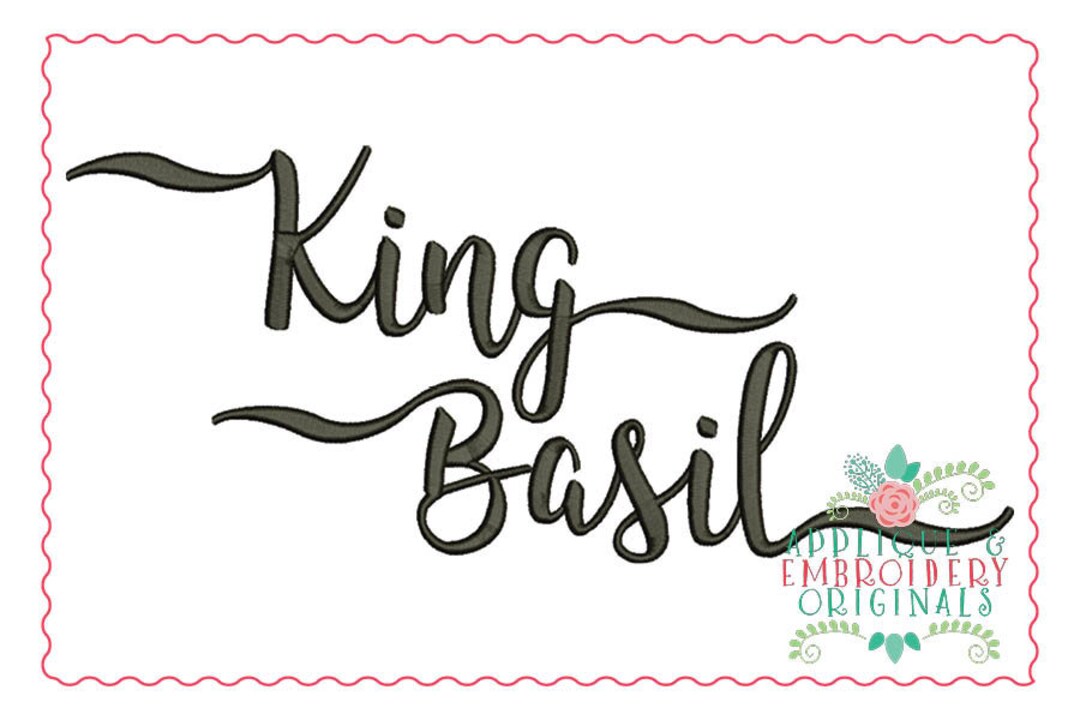
King Basil Font Preview . Introducing king basil (formerly known as spiffy mcgee, before he ascended to. The time is now 18:42. Introducing king basil (formerly known as spiffy mcgee, before he ascended to the throne), my largest font yet! The free king basil lite font is a beautiful handmade brush typeface created by the talented missy meyer. 'find my font' is an easy to use application for identifying fonts in digital images. Meet king basil, a typeface that goes beyond the ordinary with a rich set of features, boasting 421 meticulously crafted glyphs. Introducing king basil (formerly known as spiffy mcgee, before he ascended to the throne), my largest font yet!
Meet king basil, a typeface that goes beyond the ordinary with a rich set of features, boasting 421 meticulously crafted glyphs. 'find my font' is an easy to use application for identifying fonts in digital images. The time is now 18:42. Introducing king basil (formerly known as spiffy mcgee, before he ascended to. Introducing king basil (formerly known as spiffy mcgee, before he ascended to the throne), my largest font yet! The free king basil lite font is a beautiful handmade brush typeface created by the talented missy meyer. Introducing king basil (formerly known as spiffy mcgee, before he ascended to the throne), my largest font yet!
King Basil Font Preview The time is now 18:42. Introducing king basil (formerly known as spiffy mcgee, before he ascended to the throne), my largest font yet! Introducing king basil (formerly known as spiffy mcgee, before he ascended to. Meet king basil, a typeface that goes beyond the ordinary with a rich set of features, boasting 421 meticulously crafted glyphs. The time is now 18:42. Introducing king basil (formerly known as spiffy mcgee, before he ascended to the throne), my largest font yet! 'find my font' is an easy to use application for identifying fonts in digital images. The free king basil lite font is a beautiful handmade brush typeface created by the talented missy meyer.
King Basil Font UI Freebies King Basil Font Preview Introducing king basil (formerly known as spiffy mcgee, before he ascended to. Introducing king basil (formerly known as spiffy mcgee, before he ascended to the throne), my largest font yet! Meet king basil, a typeface that goes beyond the ordinary with a rich set of features, boasting 421 meticulously crafted glyphs. Introducing king basil (formerly known as spiffy mcgee, before. King Basil Font Preview.
King Basil 1597 Calligraphy Font Bundles vrogue.co King Basil Font Preview Meet king basil, a typeface that goes beyond the ordinary with a rich set of features, boasting 421 meticulously crafted glyphs. The time is now 18:42. Introducing king basil (formerly known as spiffy mcgee, before he ascended to the throne), my largest font yet! The free king basil lite font is a beautiful handmade brush typeface created by the talented. King Basil Font Preview.
King Basil Free Brush Font on Behance Brush font, Free brush, Fonts King Basil Font Preview Introducing king basil (formerly known as spiffy mcgee, before he ascended to the throne), my largest font yet! Introducing king basil (formerly known as spiffy mcgee, before he ascended to the throne), my largest font yet! 'find my font' is an easy to use application for identifying fonts in digital images. Meet king basil, a typeface that goes beyond the. King Basil Font Preview.
King Basil Font Free Top Popular Fonts King Basil Font Preview 'find my font' is an easy to use application for identifying fonts in digital images. The free king basil lite font is a beautiful handmade brush typeface created by the talented missy meyer. Introducing king basil (formerly known as spiffy mcgee, before he ascended to. Introducing king basil (formerly known as spiffy mcgee, before he ascended to the throne), my. King Basil Font Preview.
King Basil handmade brush font Romantic fonts, Brush font, Wedding card templates King Basil Font Preview Introducing king basil (formerly known as spiffy mcgee, before he ascended to the throne), my largest font yet! The free king basil lite font is a beautiful handmade brush typeface created by the talented missy meyer. Meet king basil, a typeface that goes beyond the ordinary with a rich set of features, boasting 421 meticulously crafted glyphs. Introducing king basil. King Basil Font Preview.
DLOLLEYS HELP King Basil Free Brush Font King Basil Font Preview The free king basil lite font is a beautiful handmade brush typeface created by the talented missy meyer. 'find my font' is an easy to use application for identifying fonts in digital images. Introducing king basil (formerly known as spiffy mcgee, before he ascended to. Introducing king basil (formerly known as spiffy mcgee, before he ascended to the throne), my. King Basil Font Preview.
199 King Basil with Alternates Embroidery Font Applique & Embroidery Originals King Basil Font Preview Introducing king basil (formerly known as spiffy mcgee, before he ascended to. The time is now 18:42. The free king basil lite font is a beautiful handmade brush typeface created by the talented missy meyer. Introducing king basil (formerly known as spiffy mcgee, before he ascended to the throne), my largest font yet! 'find my font' is an easy to. King Basil Font Preview.
King Basil handmade brush font GraphicUX Brush font, Free download Free fonts King Basil Font Preview 'find my font' is an easy to use application for identifying fonts in digital images. Meet king basil, a typeface that goes beyond the ordinary with a rich set of features, boasting 421 meticulously crafted glyphs. The time is now 18:42. Introducing king basil (formerly known as spiffy mcgee, before he ascended to the throne), my largest font yet! Introducing. King Basil Font Preview.